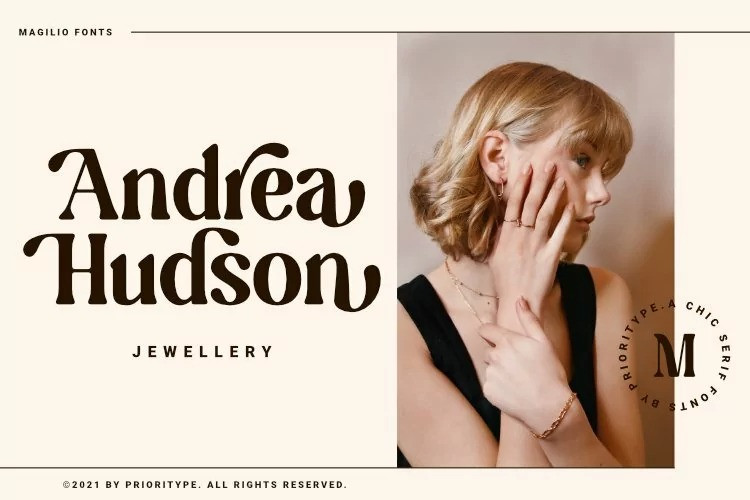
Magilio Font
Magilio Serif Font
This is a serif display font featuring classic glyphs developed in a modern and classy style. Made with many alternative characters to make it easier for you to do various design projects and give you fun while typing.
You can apply them to designs like social media posts, logos, merchandise, book covers, posters, video content thumbnails, quotes, landing pages, wedding invitations and much more which you can make with this great item for any design.